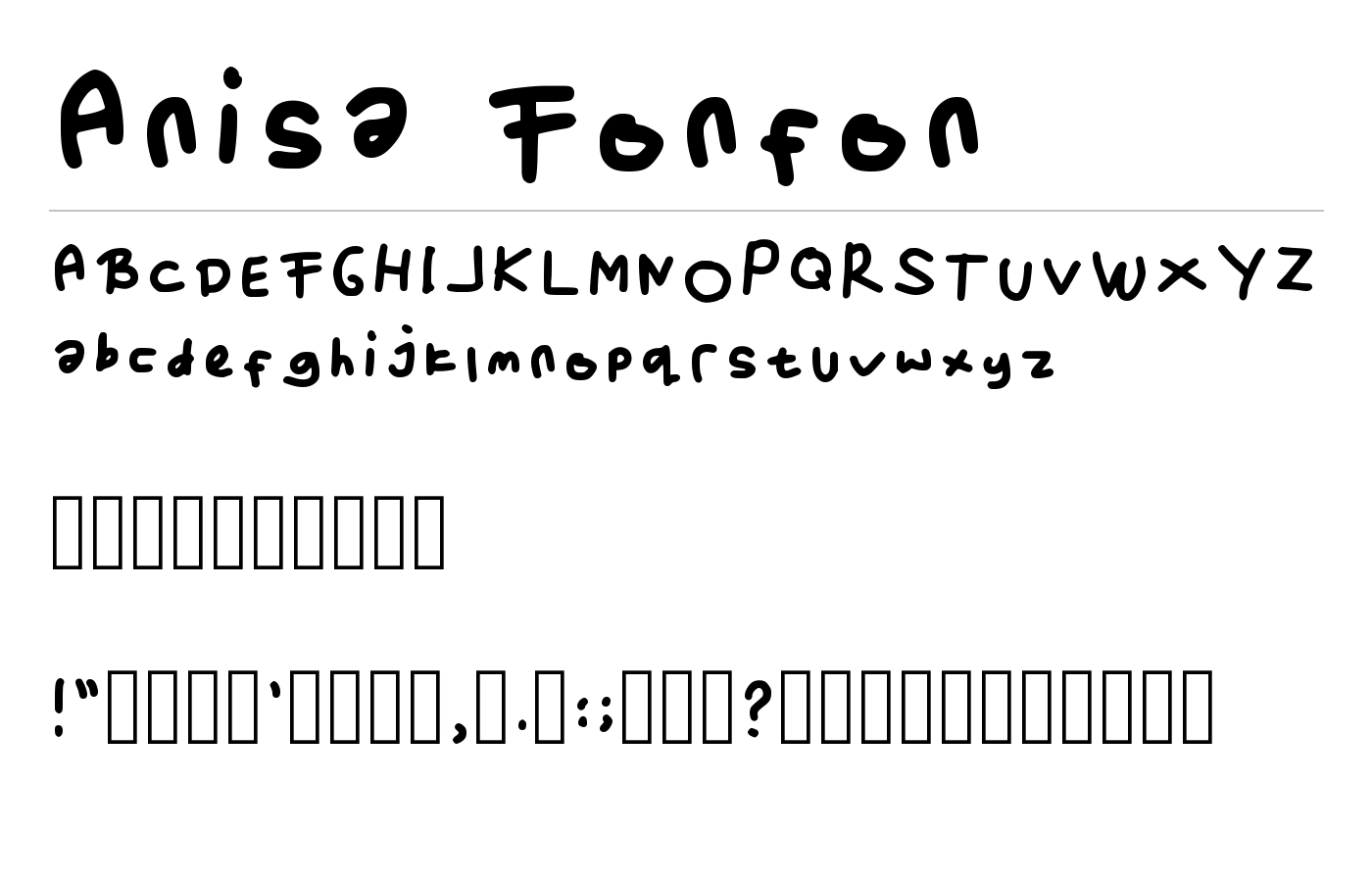
Anisa Fonfon is a playful, hand-drawn sans serif font with a casual and friendly vibe. Its irregular, rounded letterforms and uneven stroke widths give it a warm, approachable feel, making it perfect for creative projects, children’s books, or informal branding. This font works best in headlines or display use where a relaxed, fun personality is desired.
Anisa Fonfon Font
About Anisa Fonfon Font